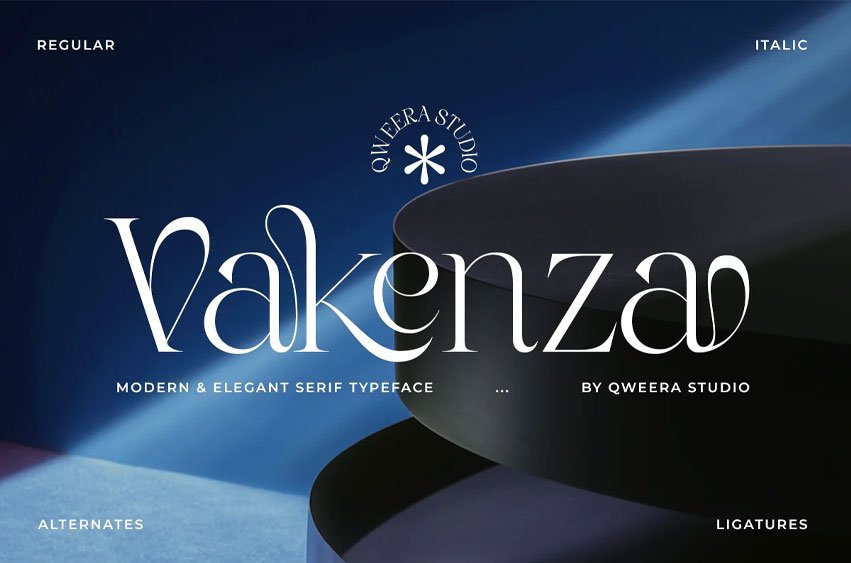
Vakenza Font is a modern elegant serif typeface crafted to bring sophistication and luxury into every design. With refined curves, stylish ligatures, and beautifully balanced proportions, this font creates a premium visual presence that feels both timeless and contemporary.
Whether used for luxury branding, editorial layouts, fashion campaigns, cosmetic packaging, or boutique logos, Vakenza delivers exceptional elegance and readability.
Its graceful personality makes it a perfect choice for designers seeking a high-end serif typeface with distinctive character.
- Uppercase & lowercase
- Alternates & ligatures
- Professional kerning
- Regular & Italic
Luxury branding, fashion editorials, beauty packaging, boutique logos, magazine layouts, premium invitations